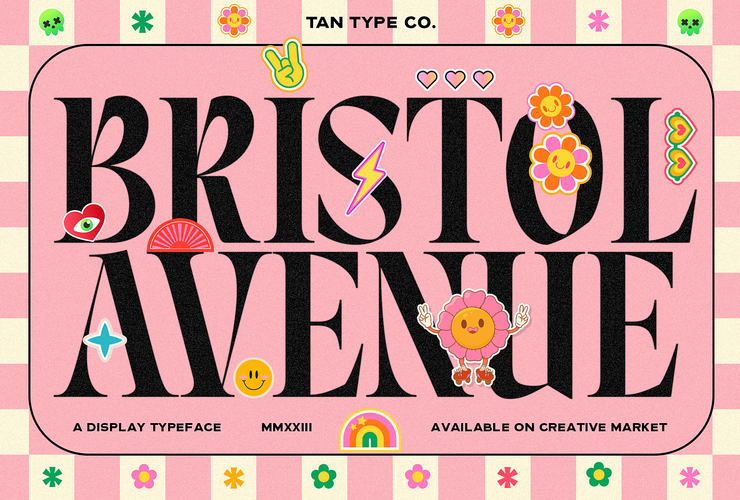
TAN Bristol Avenue Font Free Download
About BRISTOL AVENUE
TAN – BRISTOL AVENUE is a retro inspired bold typeface. It’s conventional with an edge.—TTF, OTF, WOFF, WOFF2